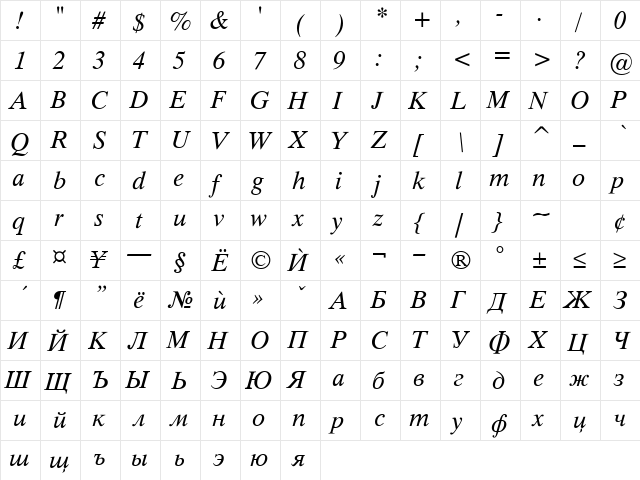
Timok Italic
Design Context for Timok Typeface
Timok is a composed and adaptable typeface that performs quietly and consistently across a wide range of design contexts. The dynamic lean of this cut emphasises speed and emphasis in any layout.
Pro Tip: Use Timok for emphasis, pull quotes, and subheadings where its slanted energy can add rhythm to the layout.